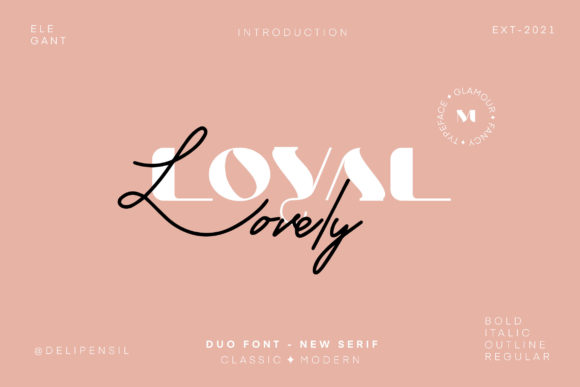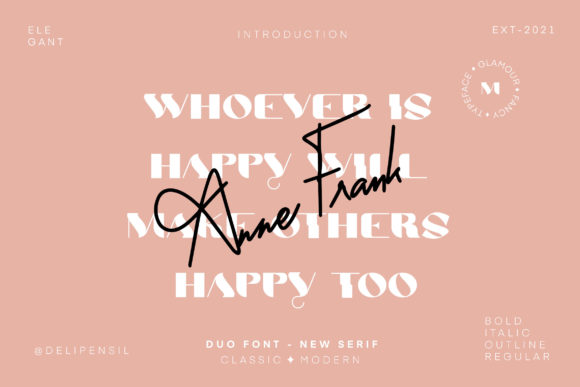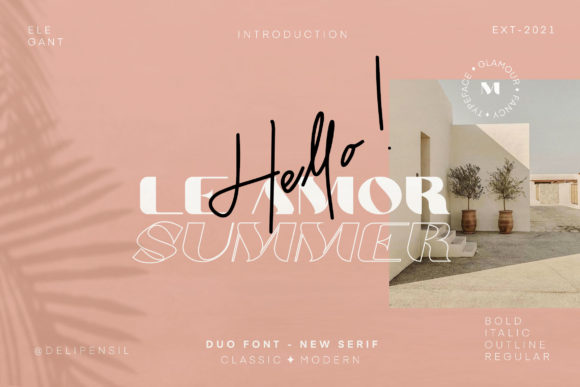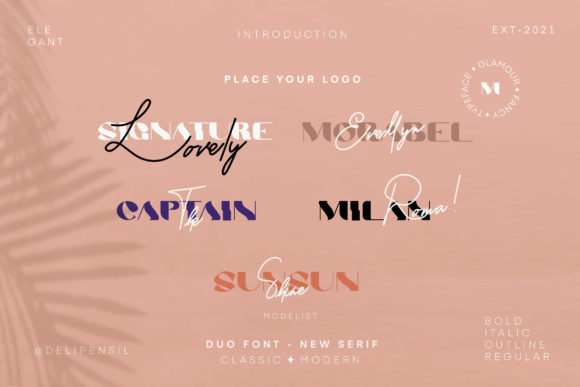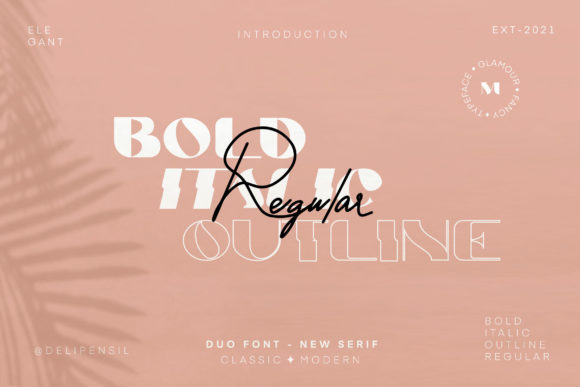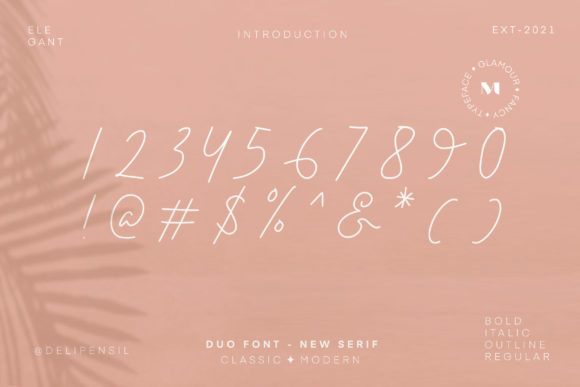
Introduction to Molina Font
Have you ever stared at a blank canvas, eager to bring your creative vision to life, only to be stumped by the perfect font to set the tone? This is where the Molina Font comes in – a game-changing design resource that will transport your creative project to new heights.
As a designer, you understand the importance of a well-crafted font in elevating your work. The Molina Font is a masterful blend of elegance and uniqueness, offering a serif and script combination that is simply out of this world. Whether you’re working on a high-quality brochure, a website, or a social media campaign, this font will add a touch of sophistication and style that’s sure to impress.
Key Features of Molina Font
- High-quality, professional font suitable for creative projects and design resources.
- Designed to be highly legible and versatile, making it suitable for a wide range of design projects, from logos to typography.
Honest Review: Molina Font
I recently had the chance to work with the Molina Font for a creative project, and I must say, it was a great experience. As a designer, I’m always on the lookout for high-quality design resources that can help me bring my ideas to life.
One of the things I love about the Molina Font is its sleek and modern aesthetic ✨. The clean lines and minimalist design make it perfect for a wide range of creative projects, from logos to editorial content. I also appreciate that it’s available for free download, making it an excellent resource for designers on a budget.
Here are some of the key features that make the Molina Font stand out:
- High-quality design that’s perfect for a variety of creative projects
That being said, I did encounter a few limitations with the Molina Font ⚠️. The font selection is limited, and it may not be suitable for projects that require a wide range of font styles.
Overall, I’m really impressed with the Molina Font. It’s a high-quality design resource that’s perfect for creative projects. While it may have some limitations, I think it’s well worth considering for your next design project.
Molina Font
Molina Font is a high-quality, versatile font that can be used for a wide range of creative projects. It’s available for free download, making it an ideal design resource for designers and non-designers alike.
Tips for Getting the Most Out of Molina Font
Here are some tips for getting the most out of Molina Font:
1. Use it on a transparent background to create a sleek and modern look.
2. Experiment with different font sizes and styles to create visual interest.
3. Use it in conjunction with other design elements to create a cohesive look.
Common Use Cases for Molina Font
Molina Font is ideal for use in a variety of creative projects, including:
1. Branding and marketing materials.
2. Website and app design.